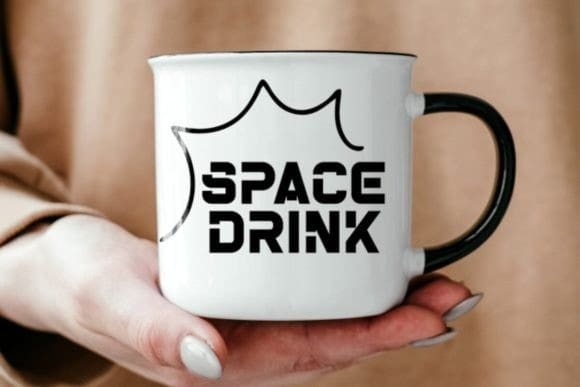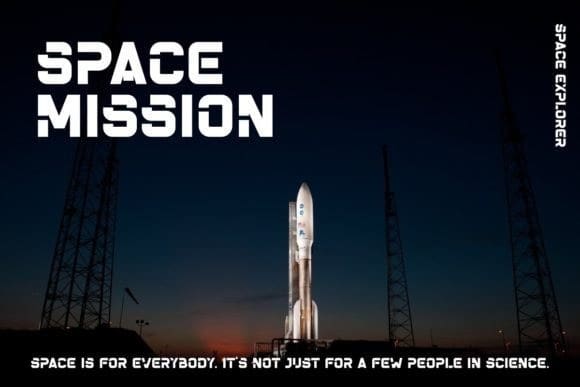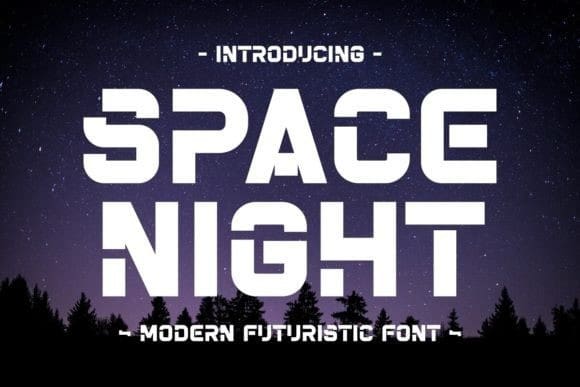
Space Night Font
Space Night Font is a modern and futuristic display font with elegance cosmic vibes. Space Night seamlessly combines cosmic elements with comtemporary flair and celestial charm where modernity meets the elegance of the cosmos. With its modern style, this font exudes beauty and elegance, making it a perfect choice for projects that demand a sophisticated and space-inspired aesthetic.